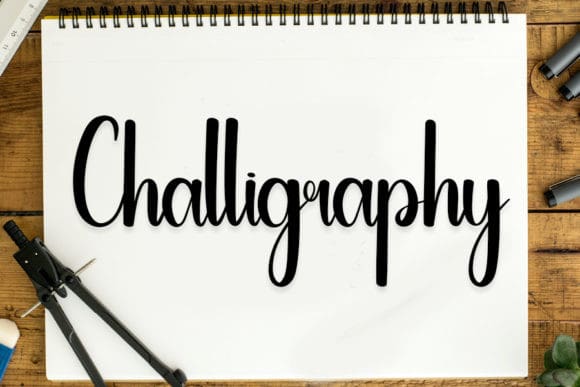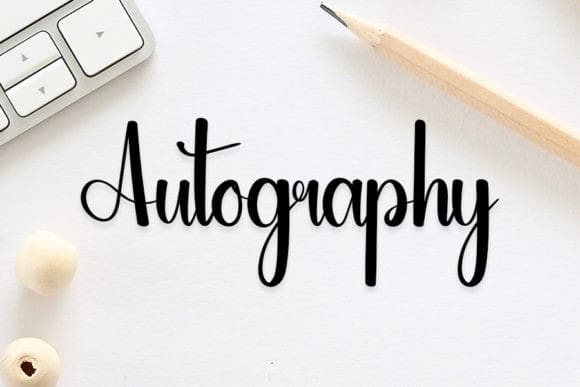
Pinky Latte Font
Pinky Latte Font is a slim and delicate handwritten font. Dainty and joyful, this font will be ideal for writing wedding invitations, cards, or any other design that may need a romantic, personalized touch!